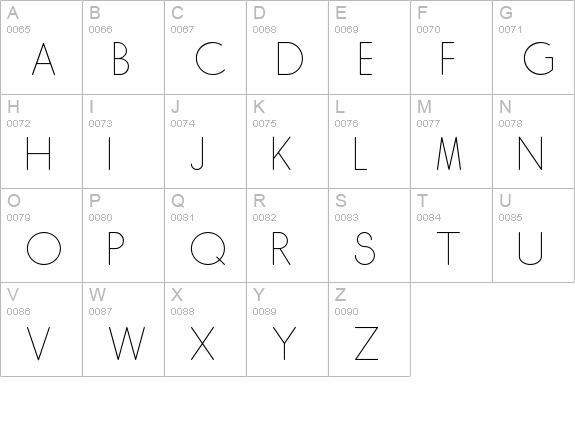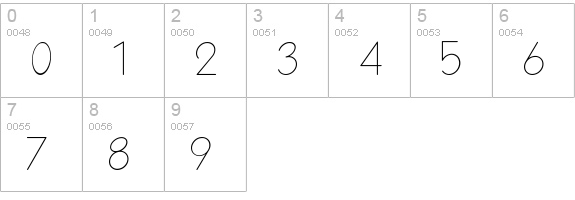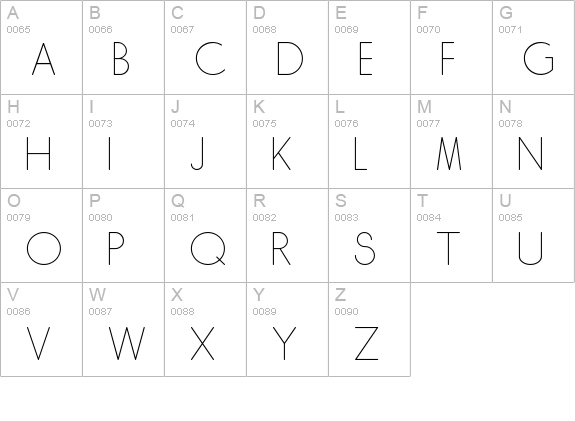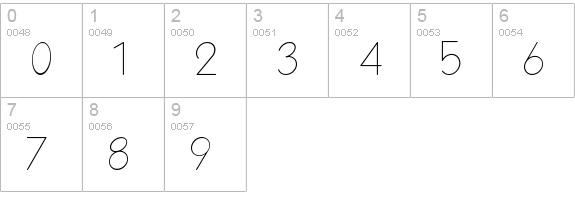
SkarpaLT font is a stunning display typeface that exudes elegance and charm. With its unique and sophisticated design, this font is perfect for adding a touch of class to any project. The smooth and fluid curves of SkarpaLT font create a sense of movement, making it visually appealing and captivating to the eye. But what sets SkarpaLT font apart is that it is not only aesthetically pleasing, but it is also free! Yes, you read that right. You can download this incredible font for free at FontsMarket.com. This means that you can elevate your designs without breaking the bank. SkarpaLT font is the ideal choice for creating eye-catching headlines, logos, posters, and more. Its versatility allows it to be used in a wide range of design projects, from branding to editorial layouts. The clean and legible letterforms make it easy to read, ensuring that your message is conveyed effectively. Whether you're a professional designer or a novice enthusiast, SkarpaLT font is a must-have in your font library. Its timeless appeal and free availability make it a valuable asset for any creative project. So why wait? Download SkarpaLT font now and let your creativity soar to new heights.